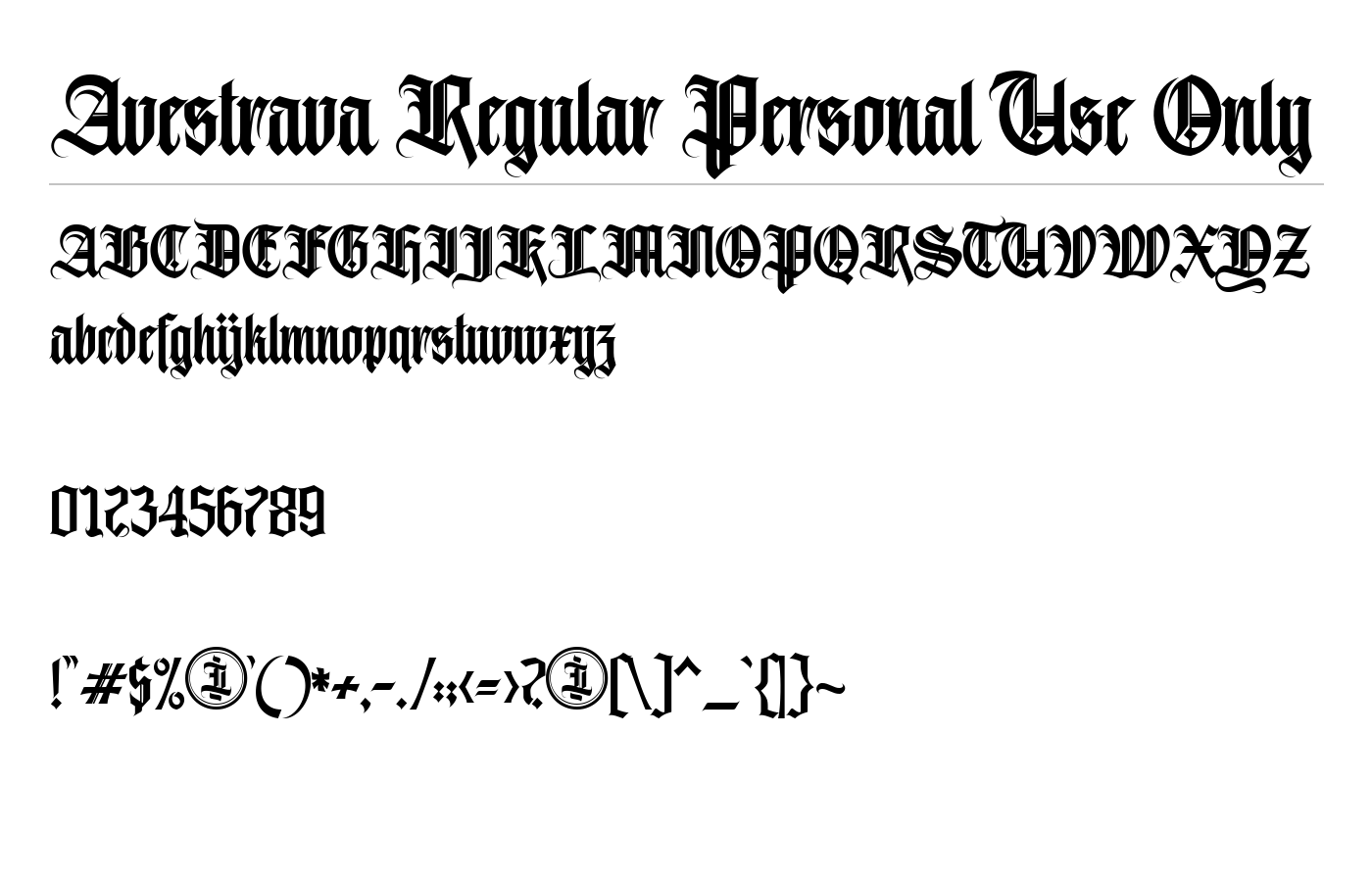
Avestrava Regular is a bold blackletter serif font characterized by its sharp, angular strokes and dramatic contrast between thick and thin lines. With its highly ornamental and historic Gothic style, it exudes a strong, classic medieval vibe, making it ideal for vintage-themed branding, posters, or headlines that demand attention and a sense of tradition. This font shines in decorative contexts where a powerful and elaborate aesthetic is desired rather than for long text or modern digital interfaces.
Avestrava Regular Personal Use Font
About Avestrava Regular Personal Use Font
| Font family | Avestrava Regular Personal Use Font |
| Designer | Ilham Wahyu |